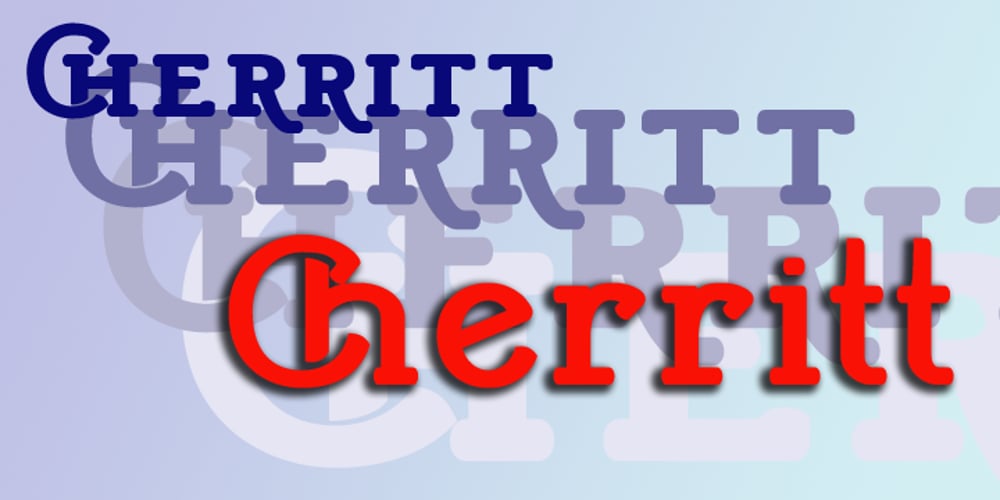
Cherritt Font Family was designed by Paul James Lloyd and published by Greater Albion Typefounders. Cherritt contains 20 styles and family package options. We think of Cherritt as a ‘bullnosed’ serif face, because of its rounded off serifs. What that phrase may not convey is the friendly, approachable nature of this large family of faces. The design was originally inspired by traditional draftsmens’ hand-drawn serif lettering, but has been given a precise geometric flavor that suits it for work owing its inspiration to any era, from Victorian times through to the purely modern. They are ideal for headings and poster work, but also for setting small volumes of text. Four weights are included in the family, as well as wide, expanded and condensed forms, true small capitals and openface forms. All family members embody extensive OpenType features.